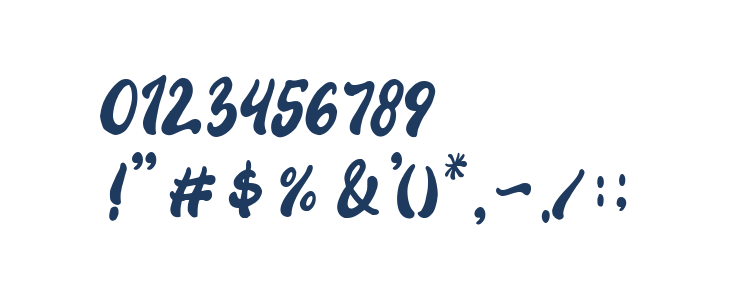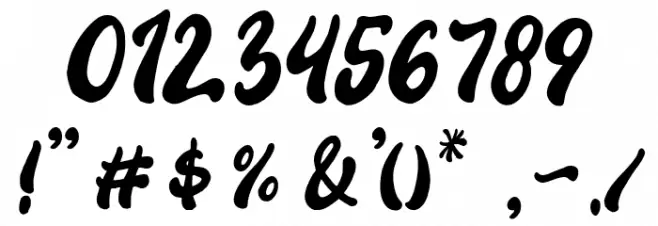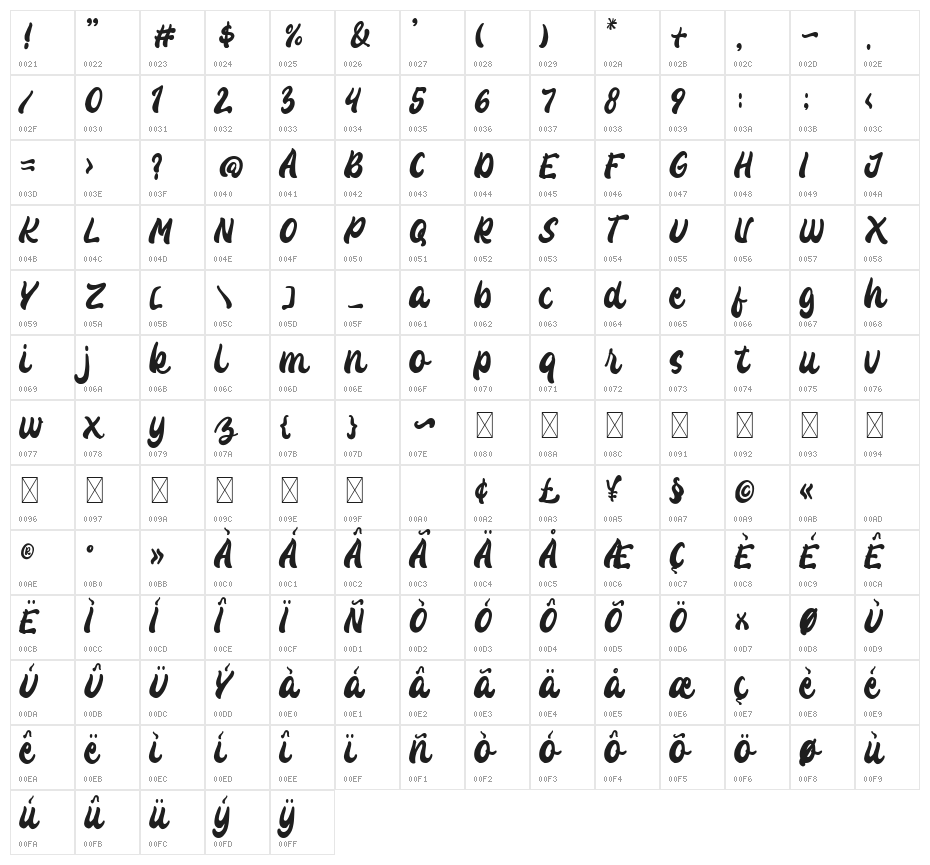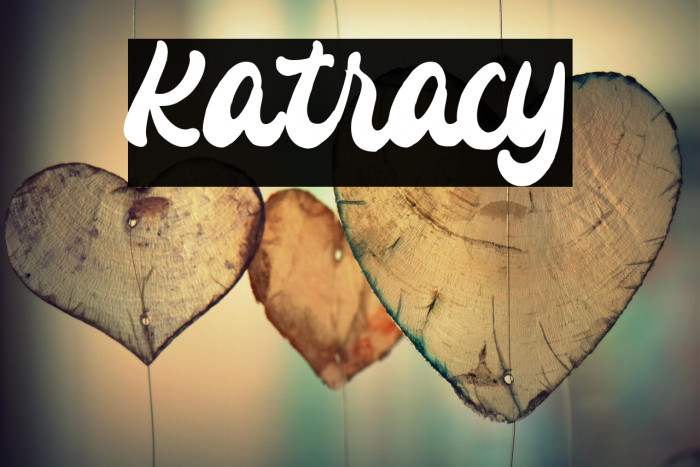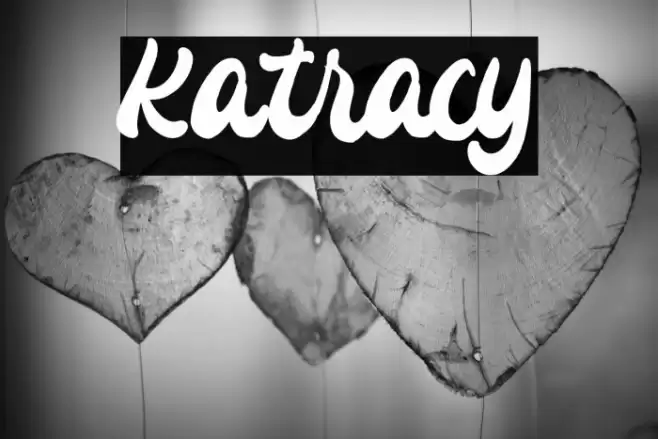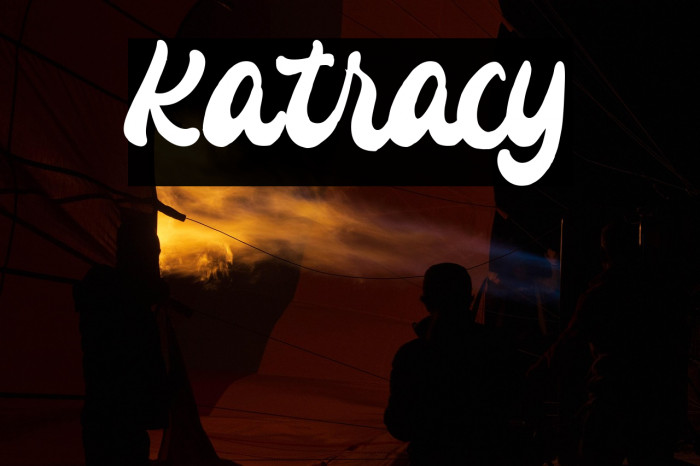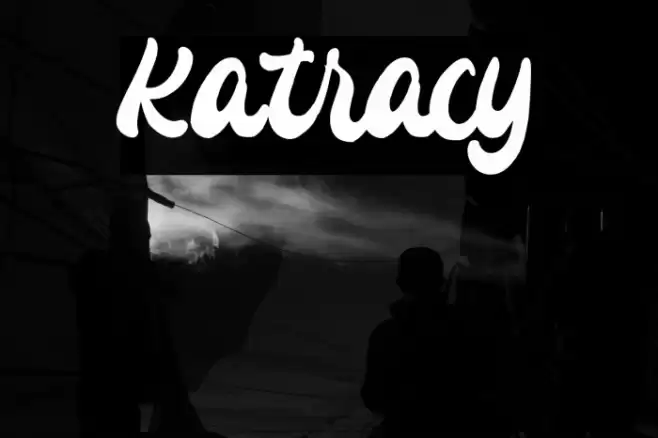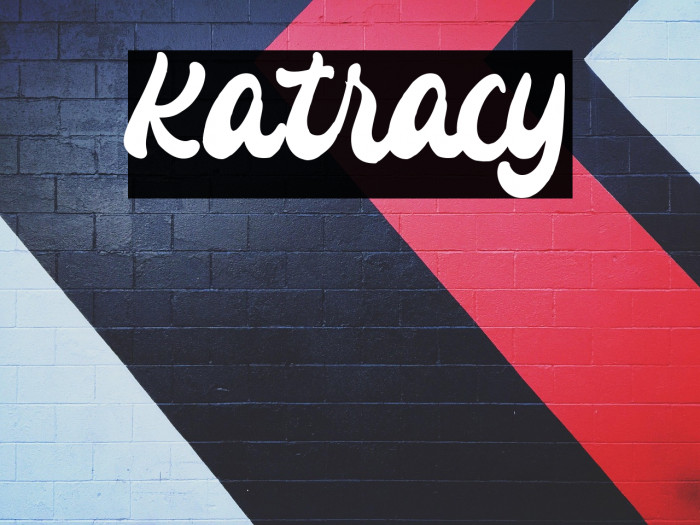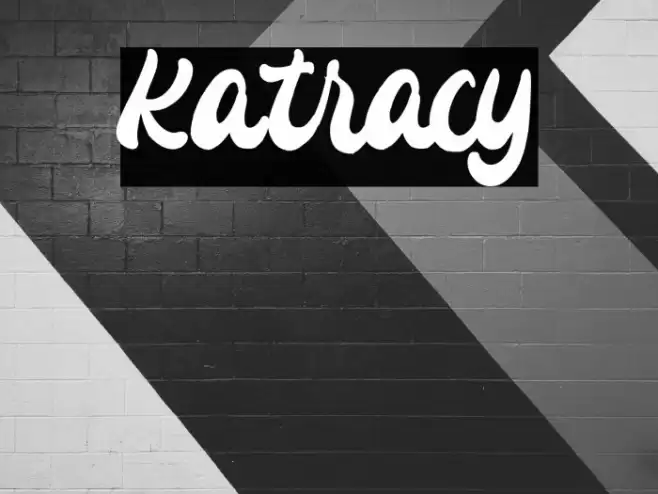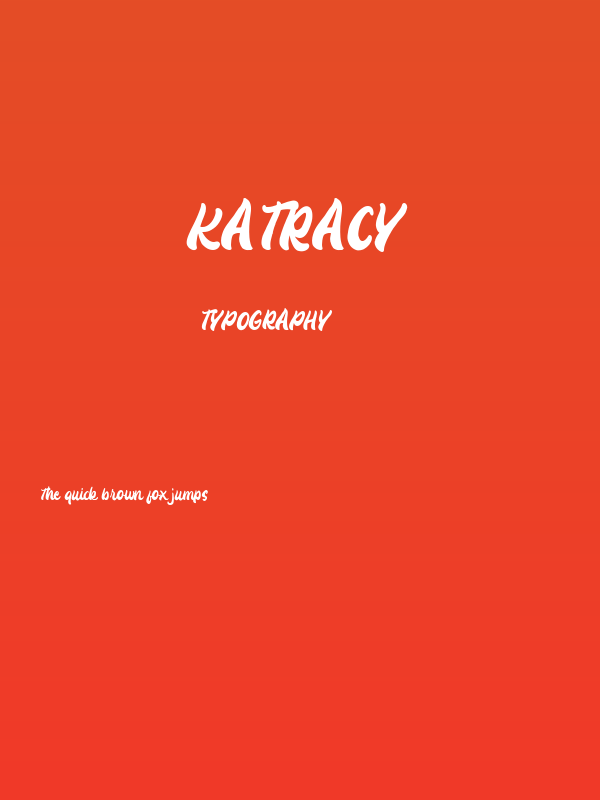
Katracy Font
Katracy Description
This font features a bold and expressive handwritten style, characterized by its fluid and dynamic strokes. The letters are slightly slanted, giving a sense of movement and energy. The uppercase and lowercase letters maintain a consistent style, with rounded edges and a playful, casual appearance. The numbers and special characters follow the same aesthetic, ensuring a cohesive look across all text elements. The overall design is friendly and approachable, making it suitable for projects that require a personal touch.
Overall StyleCasual, Playful
Use CaseLogos, Headlines, Creative projects
Proposed ProjectsIdeal for greeting cards, invitations, personal branding, and creative projects that require a warm, personal touch.